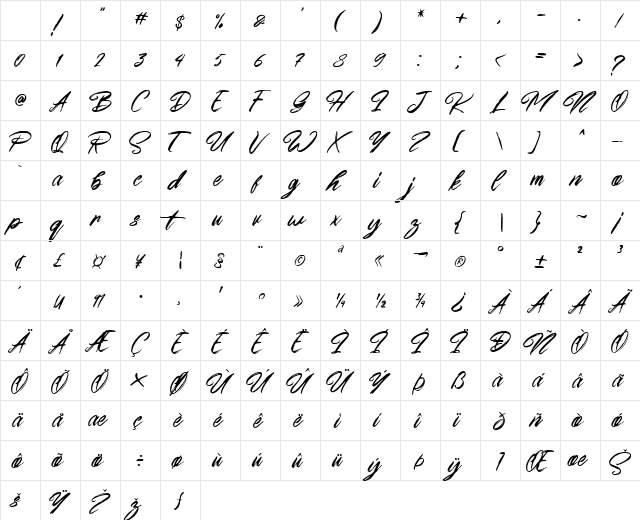
Complete Young Blood Solid Free Regular glyph index. Displaying only characters natively supported by Young Blood Solid Free Regular font.
Young Blood Solid Free carries an unsettling edge - its distorted letterforms are built to unsettle, perfectly suited to horror, Halloween, and dark creative work.
Font Pairing: Pair with a clean neutral sans-serif for body copy to let Young Blood Solid Free's character lead without overwhelming the composition.
Pro Tip: Use Young Blood Solid Free at larger display sizes for maximum impact. Consider generous tracking to let the disturbing character of each letterform breathe.